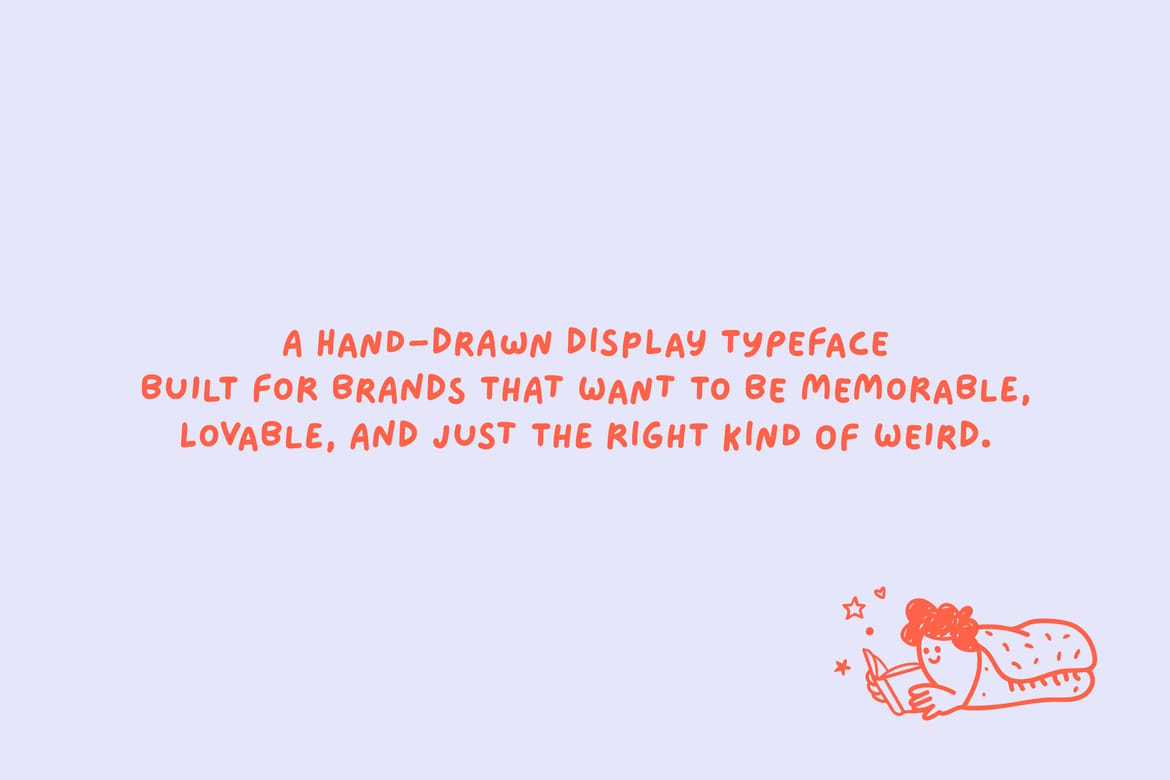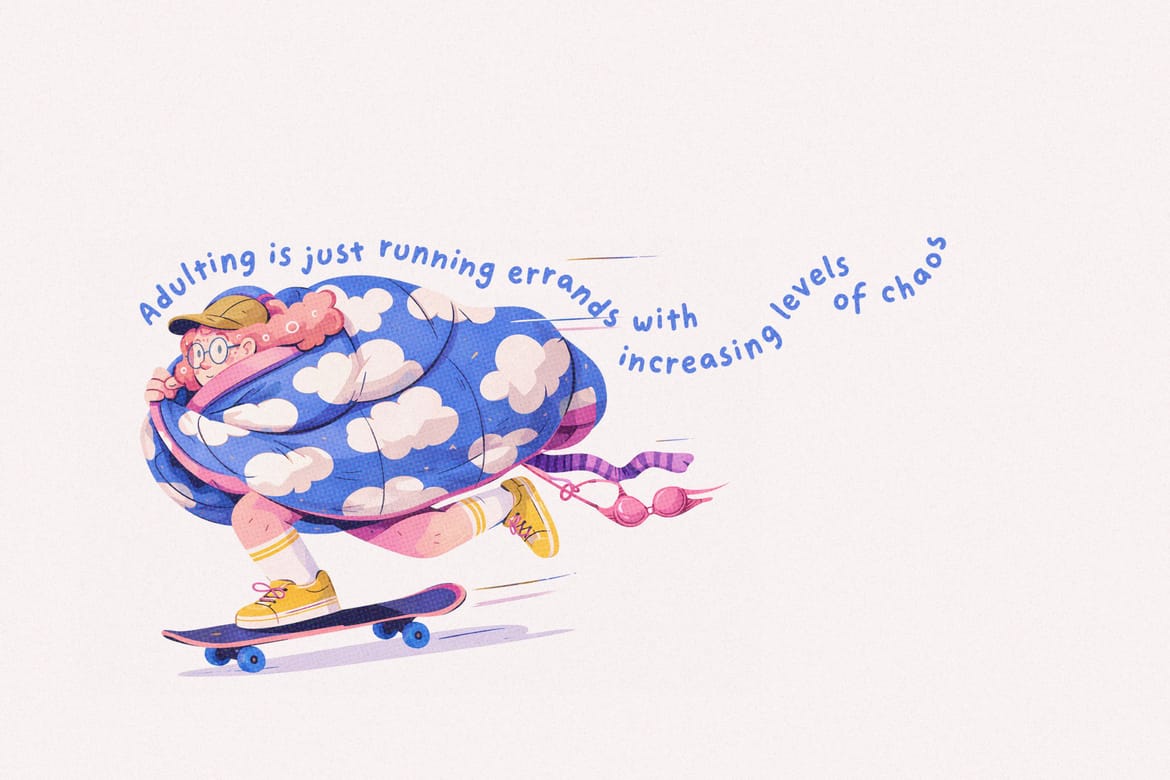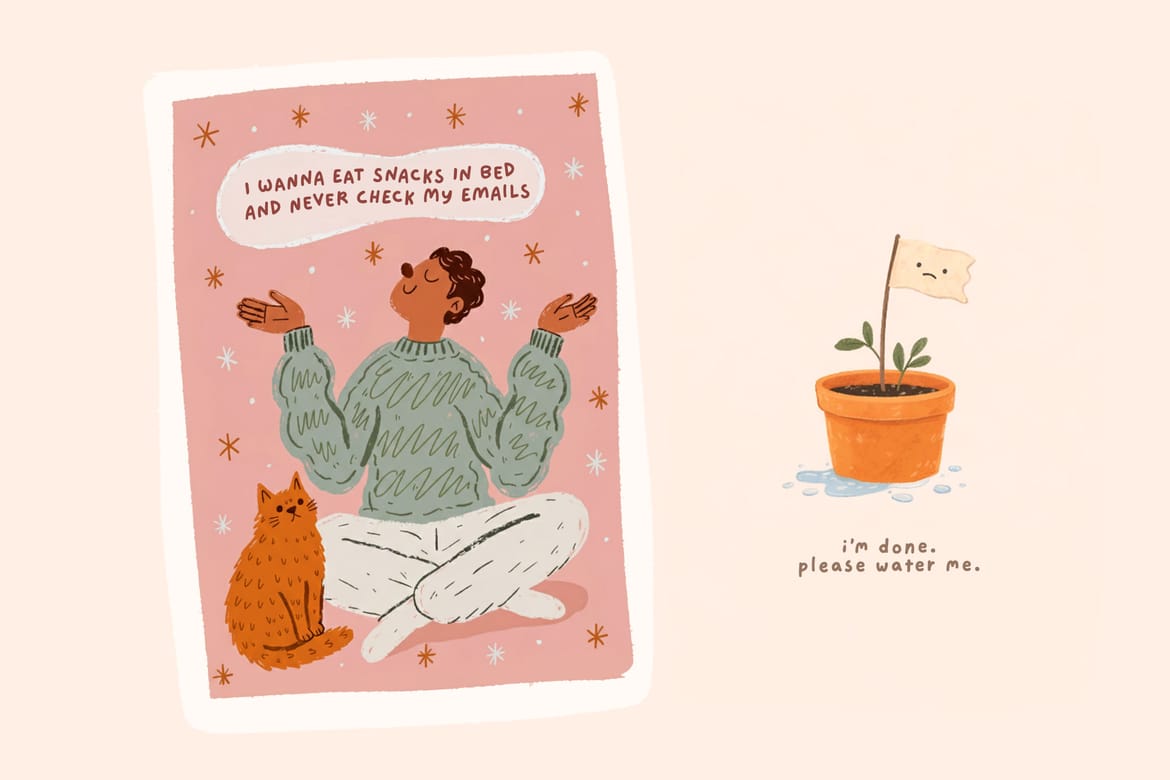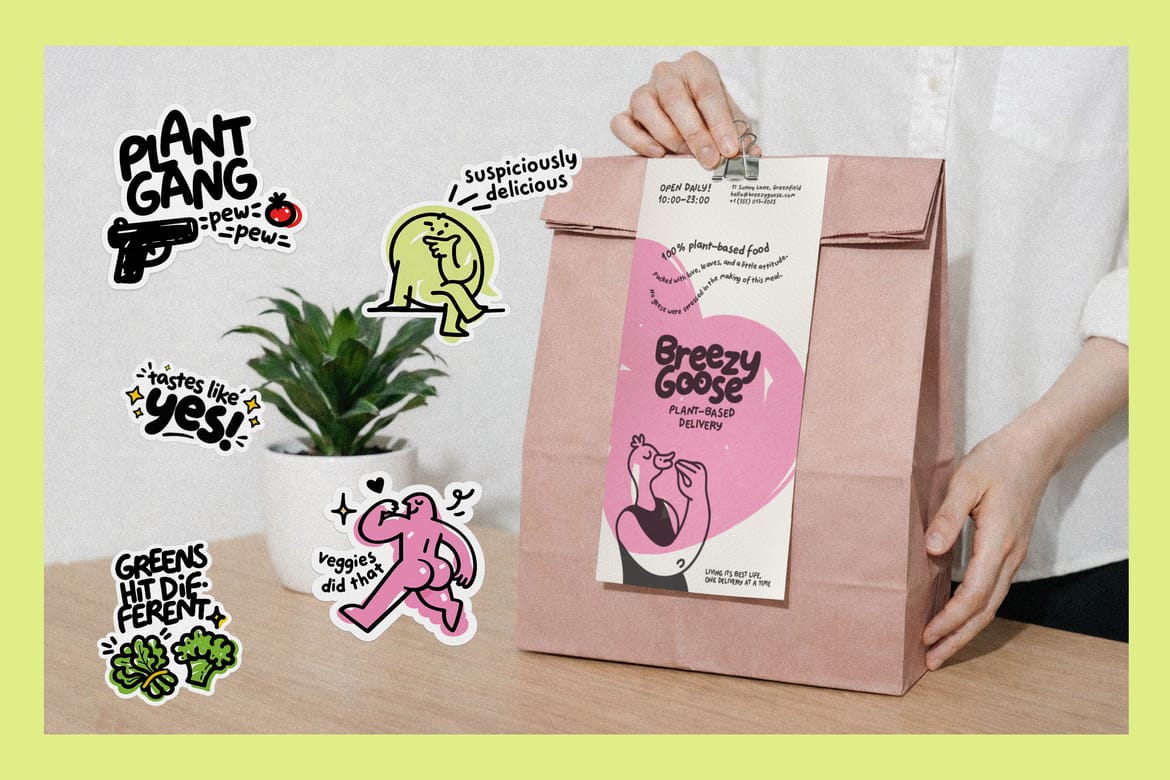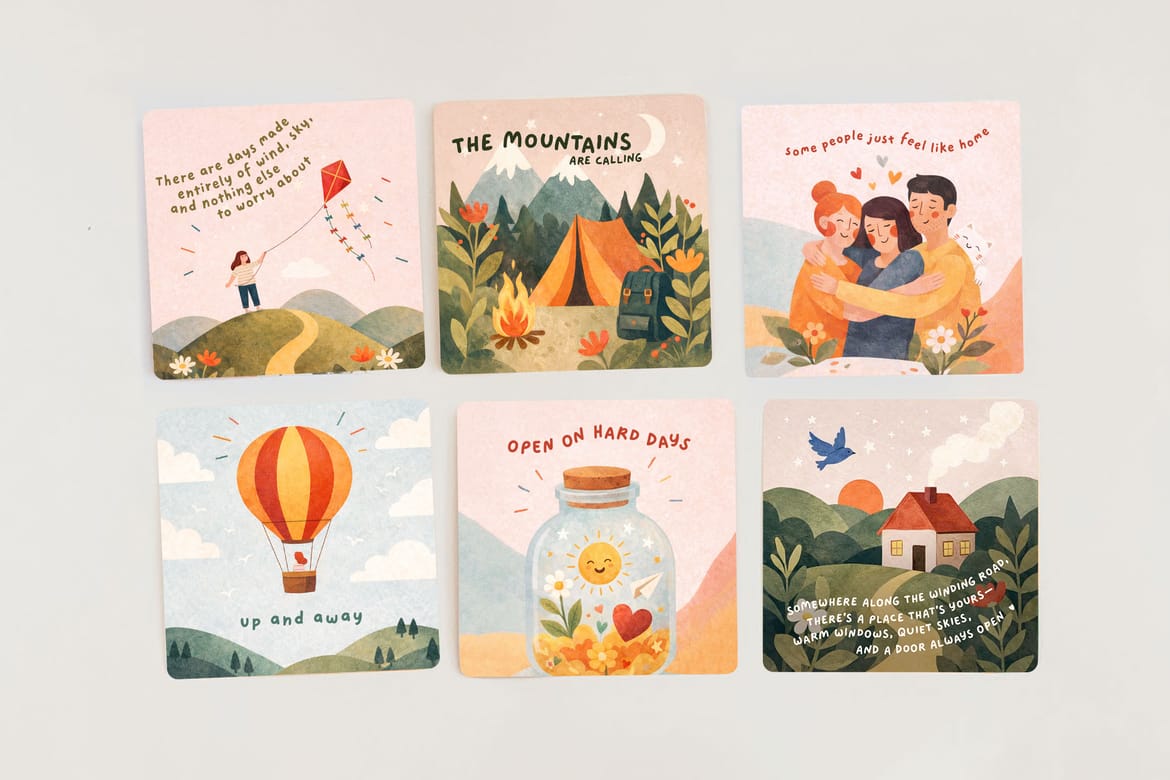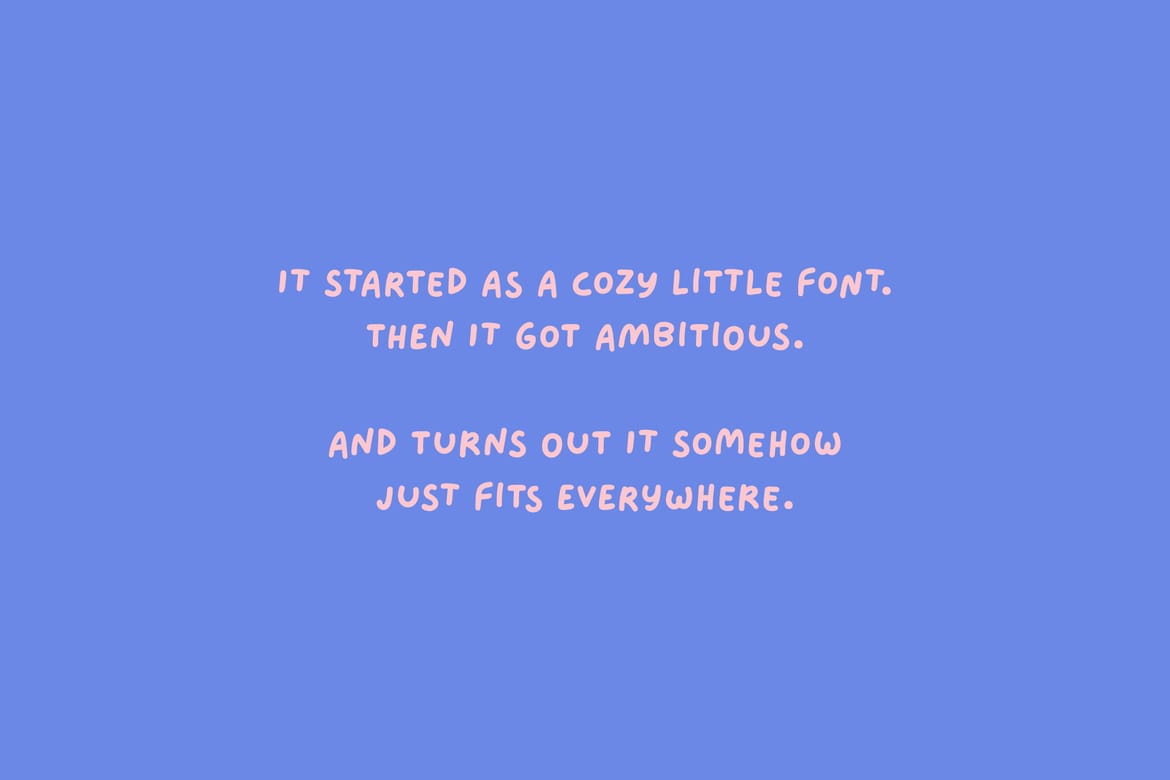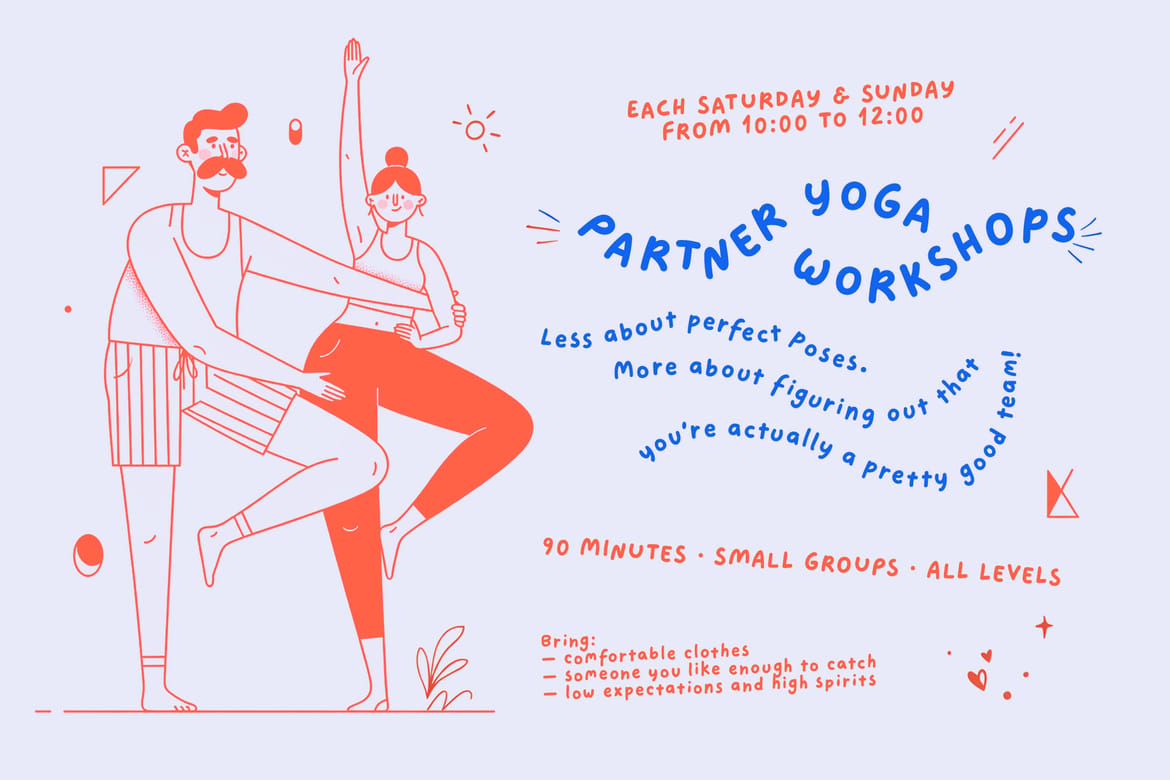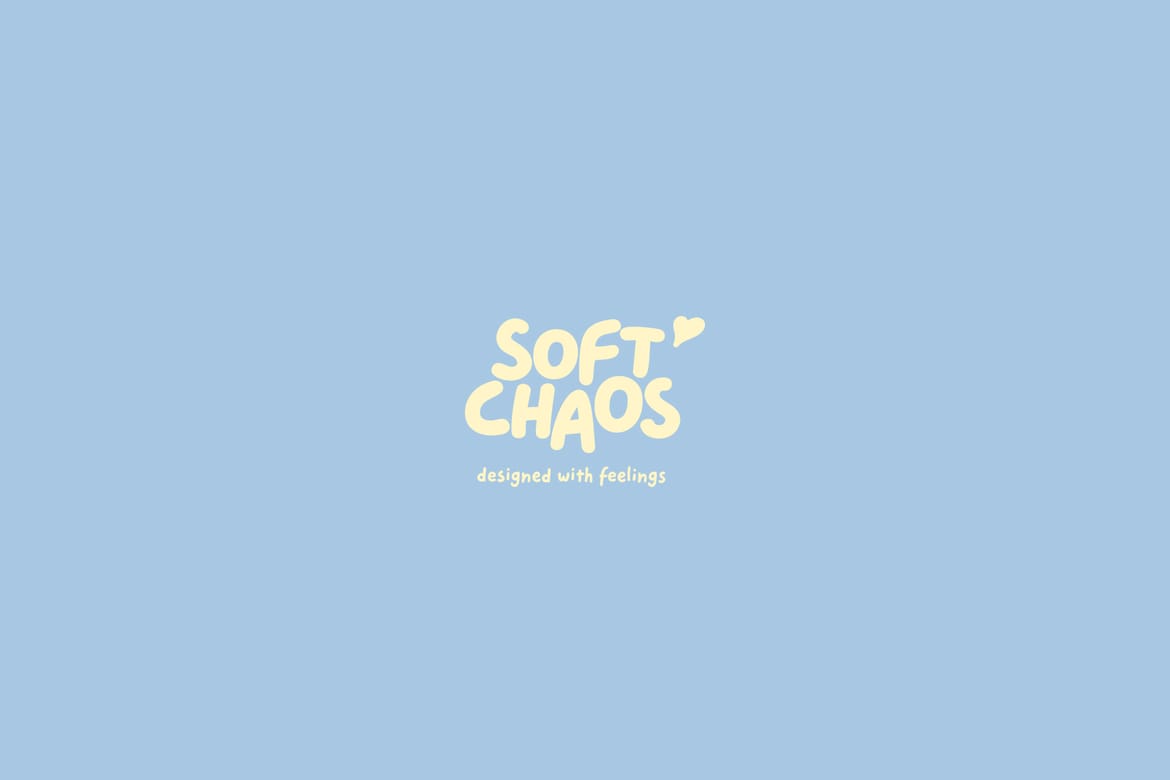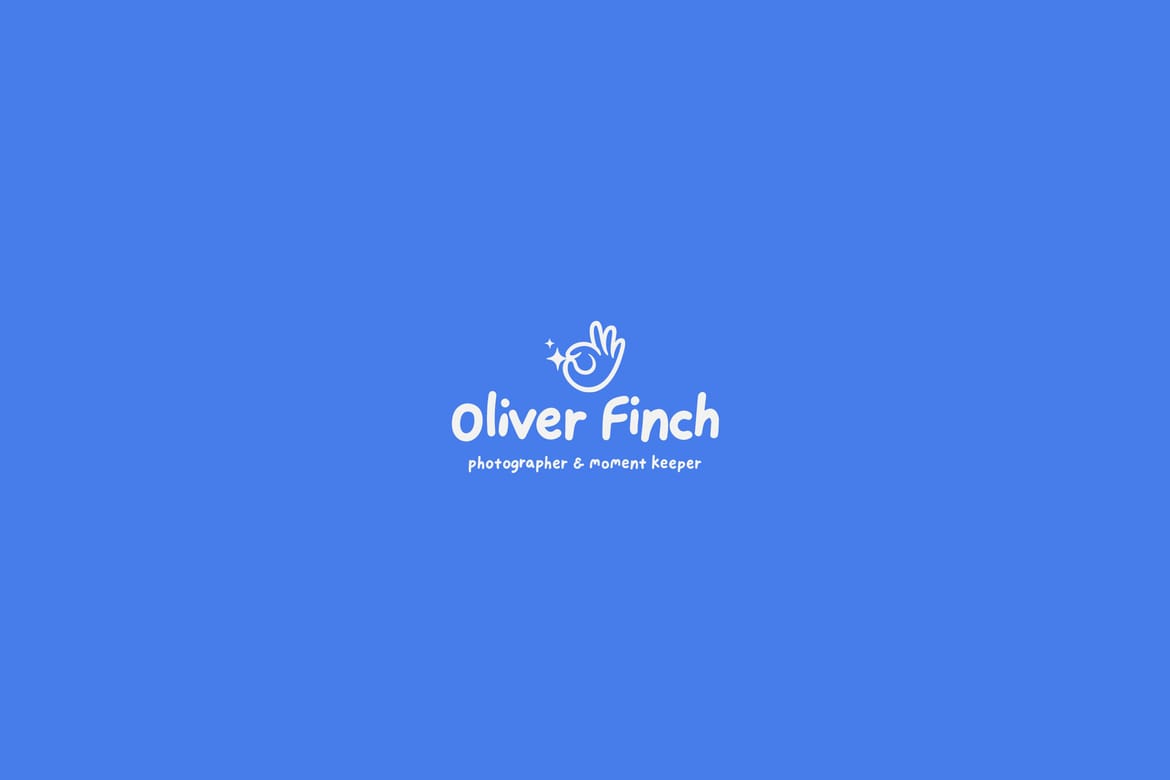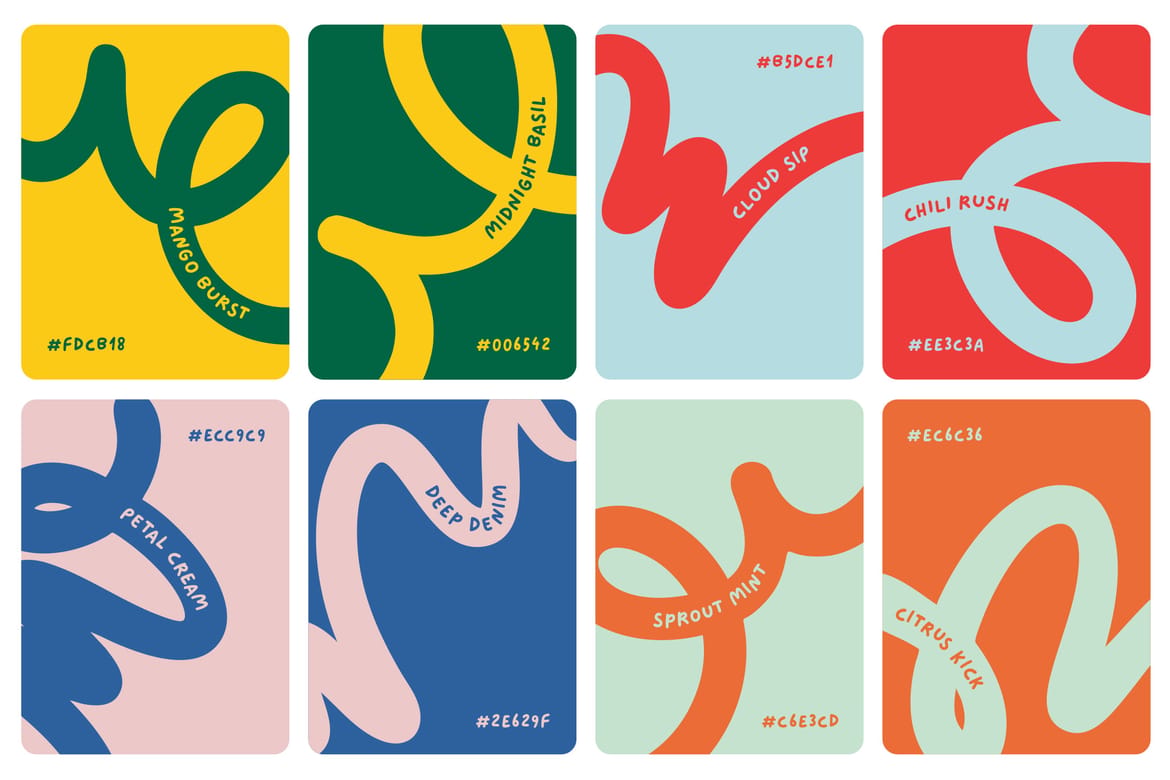
Helvetica walks into a bar. This font stayed home — wrapped in a blanket, eating snacks, and having the time of its life.
That's the whole vibe, actually.
Meet Blanket Burrito: a hand-drawn display font that can be described as "playful", "chunky", "cozy", and "why don't I have this already".
It has the kind of personality that makes your designs feel genuinely human — and it works for the funny stuff and the heartfelt stuff, sometimes on the same poster.
Perfect for:
— Indie food & beverage branding and packaging
— Sticker packs, merch, and zine covers
— Mental health, self-care, and wellness brands
— Social media content and quote graphics
— Children's products, greeting cards, and gifts
— Logos and wordmarks for cozy lifestyle brands
Blanket Burrito contains 559 glyphs and supports 88 languages.
- Chunky, cozy & full of personality
- Endlessly versatile
- 559 glyphs, 88 languages